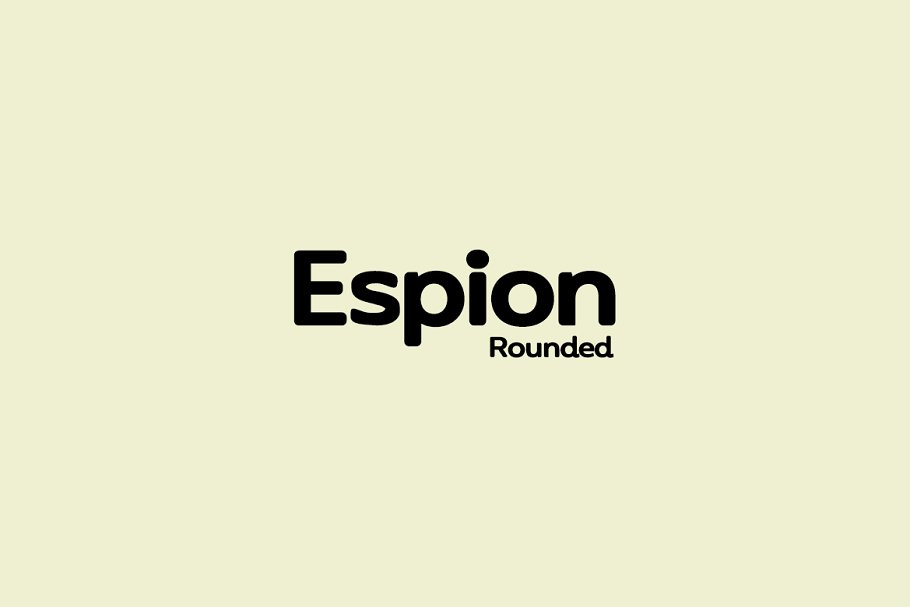
Espion Rounded Font
Espion Rounded Font is perfect for cybersecurity companies, spy-themed entertainment, detective agencies, mystery novel covers, surveillance technology branding, and covert operations materials. Its enigmatic character makes it ideal for security consulting firms, intelligence training programs, escape room venues, mystery gaming apps, private investigation services, and any project requiring sophisticated secrecy with modern surveillance aesthetics and mysterious professional appeal.
This font is exciting because it masterfully balances the intrigue and sophistication of espionage with the approachable warmth of rounded typography, creating letterforms that feel both mysteriously compelling and professionally trustworthy. The carefully softened edges maintain readability while preserving an air of secrecy and intelligence, making it perfect for brands seeking to communicate expertise in security while remaining accessible to clients requiring discretion.
The Espion Rounded Font family typically includes Light, Regular, Medium, and Bold weights with covert alternates, intelligence-inspired ligatures, and surveillance elements that enhance its mysterious personality. This comprehensive collection provides designers with sophisticated tools for creating secure brand systems that maintain professional credibility while offering flexibility for various security applications requiring both authority and approachability.